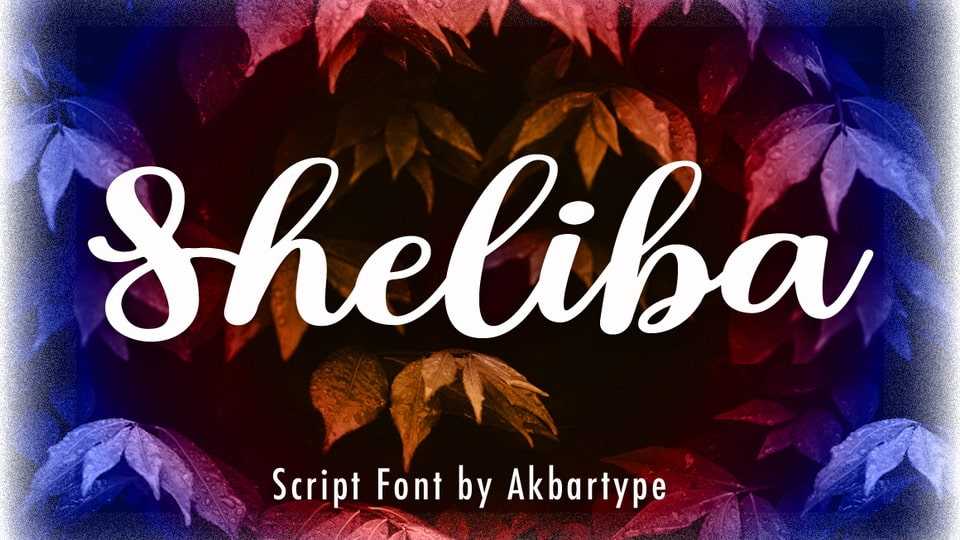
Download Sheliba font, a bold and stylish handwritten script typeface. Its natural and unique style makes Sheliba font incredibly fitting to a large pool of designs.
Designer: Akbartype